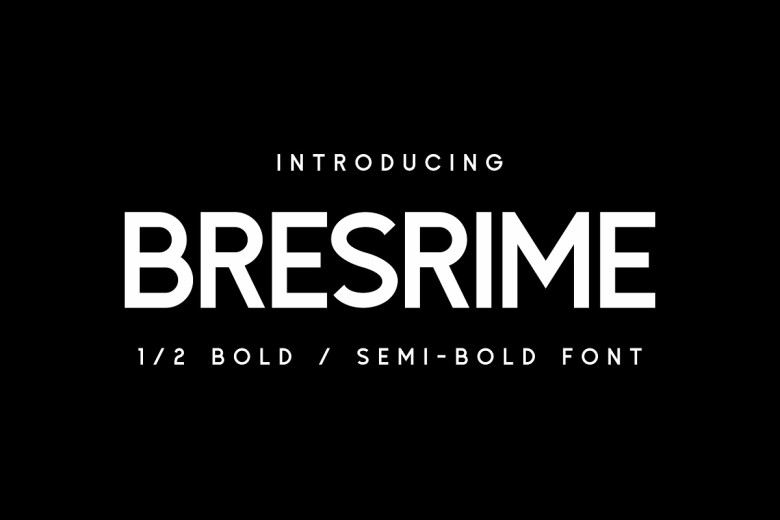
Bresrime Font
Bresrime features a minimal and elegant shape. This font can be utilized for various creative uses such as printing books and titles, headings photography embellishments branding logos cosmetics etc.
Bresrime Bold Sans Font